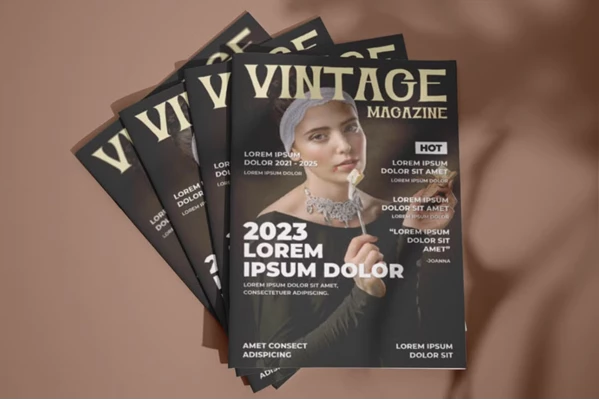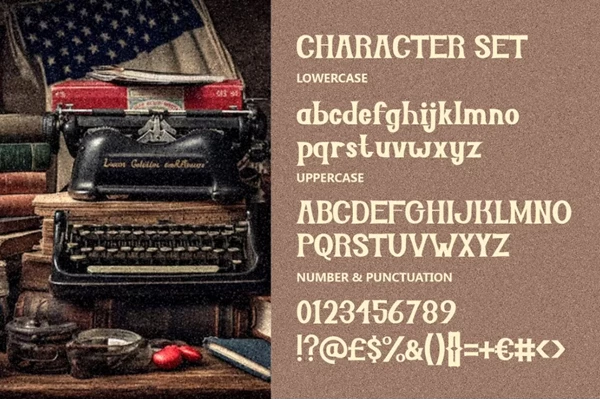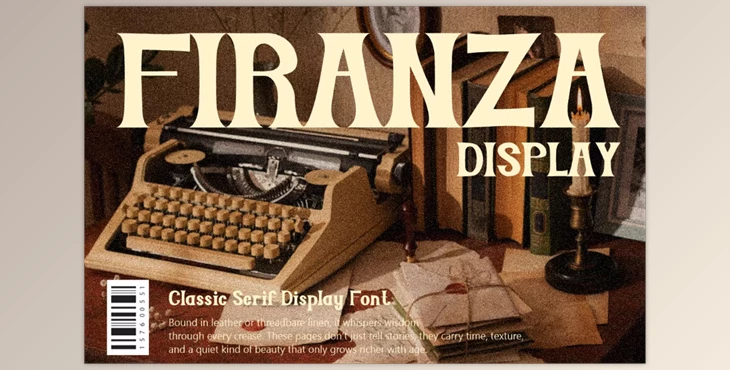
Firanza Display - Classic Serif Font:
Firanza Display is a sophisticated serif font that evokes the nostalgia of vintage editorial design. Its soft curves, sharp serifs and well-crafted letters convey mastery while reflecting the elegance of book covers, antique posters and literature magazines. Blending the nostalgia of typewriters with modern digital design typefaces, Firanza Display is best used in uppercase but maintains readability across multiple formats. This makes the font suitable for vintage branding, cinematic titles and even mid-century film graphics.
For projects such as a historical novel design, crafting a luxury brand identity or period-style packaging, this font is ideal for anything requiring a hint of history. Enhanced by muted tones, old photographs and textured backgrounds, the Firanza Display showcases its retro charm. Offering designers a complete set of uppercase, lowercase, punctuation, and numerals adds the capability to create bold statements as well as detailed, intricate systems. Elite designers looking to add depth, emotion and history to their visuals will find Firanza Display as an exceptional option.
"Firanza Display - Classic Serif Font" Samples: